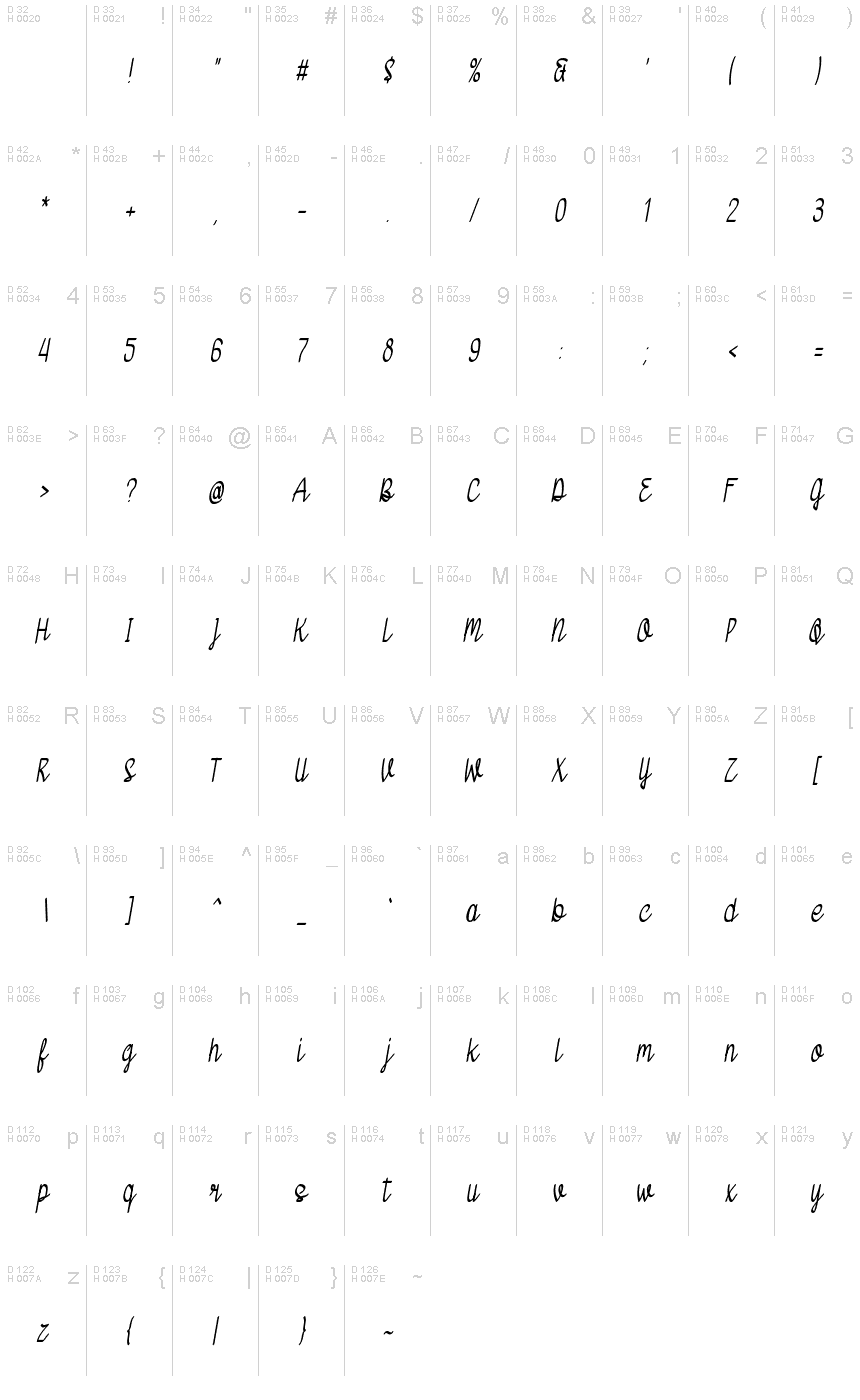
Bossy Sloth
Bossy Sloth is a playful and inviting handwritten font designed by Khabibur Rokhman. Its semi-light weight combined with an extra-condensed width makes it perfect for creating eye-catching headlines and titles. Use it to add a touch of whimsy to your branding materials, social media graphics, or even children's books. Bossy Sloth's unique style and personality make it suitable for a wide range of projects, from greeting cards to fashion magazines. Let this font bring out your inner bossiness while still maintaining a sense of fun and lightheartedness.